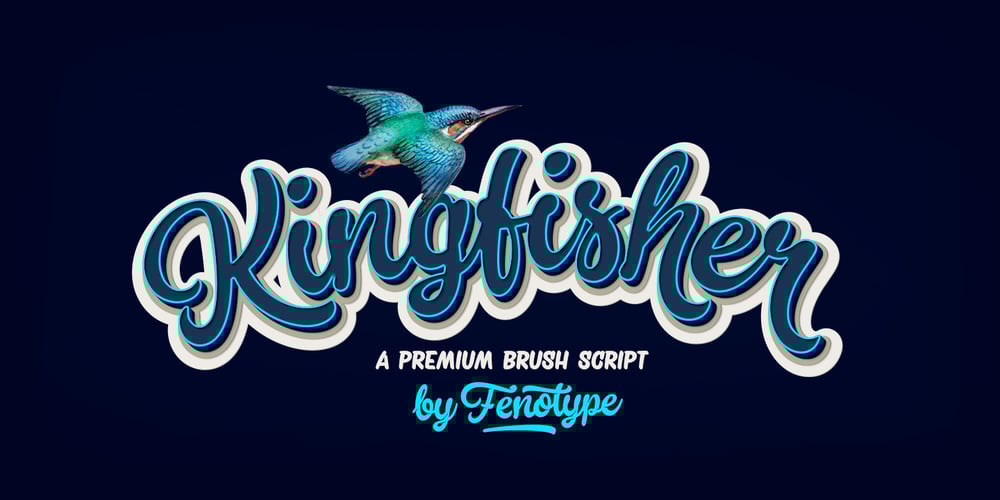
Kingfisher Font Family was designed by Emil Karl Bertell and published by Fenotype. Kingfisher contains 8 styles and family package options. Kingfisher is a bold brush family with Script, casual Caps and Extras. Kingfisher is divided into three styles -regular, distressed and one with stylised cuts that emphasize the brush stroke. Kingfisher is packed with several OpenType features: Contextual Alternates and Standard Ligatures are automatically on to keep the flow. For flashier characters, try Swash or Titling Alternates. Font is PUA encoded so you can access extras from character map in most design software. For the best price, purchase the complete pack!